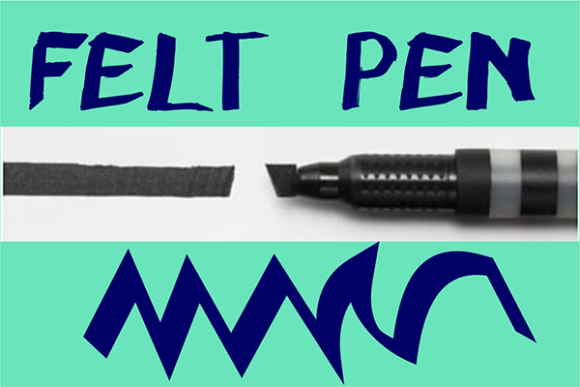
The Perfect Distinction: Felt Pen Font
Have you ever stared at a blank canvas, searching for the perfect font to bring your design to life? The blank page can be daunting, but sometimes all it takes is the right tool to spark creativity. For designers, finding that perfect font can be a game-changer. Imagine being able to add a unique touch to your designs with just a few strokes of a digital pen.
| 👤 Author | Raul Andres Perez Canseco |
Enter the Felt Pen Font, a cool and brushed display font designed to make a statement. With its imposing and uniquely shaped letters, this font is perfect for adding a distinct touch to your creations. Whether you’re working on a logo, poster, or social media graphic, the Felt Pen Font is sure to impress.
As a valuable addition to any designer’s toolkit, the Felt Pen Font offers a level of flexibility and creativity that’s hard to find in other fonts. With its versatility and unique aesthetic, it’s the perfect choice for designers looking to add a touch of sophistication and style to their work.
Felt Pen Font Key Features
- Font Family: Felt Pen Font is a digital font that mimics the appearance of handwriting with a felt-tip pen.
- Unique Characteristics: The font’s distinctive, handwritten style and subtle imperfections evoke a sense of informality and creativity, making it suitable for various design applications, including logos, advertising, and editorial content.
Felt Pen Font Review
I’ve had the chance to work with the Felt Pen Font, and I must say it’s a unique and quirky addition to any design project. ✨ The font’s hand-drawn feel gives it a personal and organic look that’s perfect for creative industries like art, fashion, or children’s content. It’s also great for headings or titles where you want to add some visual interest.
- Works well for creative industries or projects that require a playful touch
- Great for headings or titles where you want to add some visual interest
- Perfect for those who want a font that stands out from the crowd
However, there are a few limitations to consider. ⚠️ The font can be a bit difficult to read at smaller sizes, and the irregular lines can make it challenging to use for body text. Additionally, the font’s quirks can make it harder to achieve a consistent look across different platforms or devices.
Overall, I think the Felt Pen Font is a great addition to any designer’s toolkit, but it’s not suitable for every project. If you’re looking for a font that adds a touch of whimsy and personality, this might be the perfect choice. But if you need a font that’s clean, simple, and easy to read, you might want to look elsewhere.
Tips for Getting the Most Out of Felt Pen Font
For the best results, use Felt Pen Font with bold or italic styles to add emphasis.
Experiment with different font sizes and line spacings to create a unique look.
Combine Felt Pen Font with other creative elements, such as illustrations or graphics, to add visual interest.
Felt Pen Font is ideal for:
- Children’s book illustrations.
- Handwritten-style invitations or cards.
- Quirky or humorous advertising campaigns.